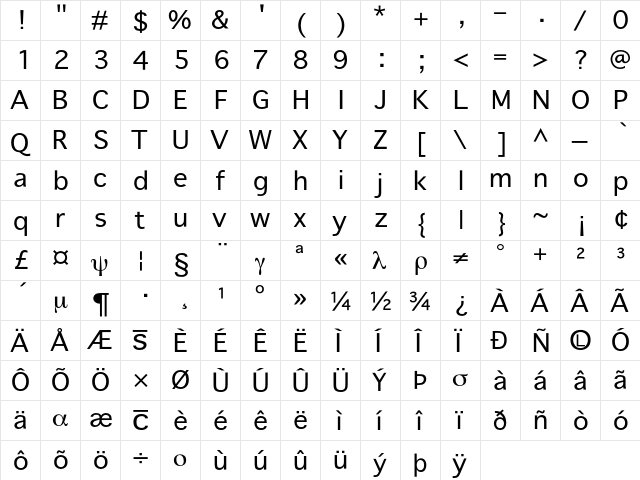
MedTech Regular Font Preview
MedTech Regular
Design Context for MedTech Typeface
MedTech has a distinctly futuristic character, with geometric precision and clean angles that feel at home in technology, gaming, and sci-fi contexts.
Pro Tip: Use MedTech in combination with a neutral sans for body text. Let it define the brand voice in headlines while keeping reading comfortable elsewhere.